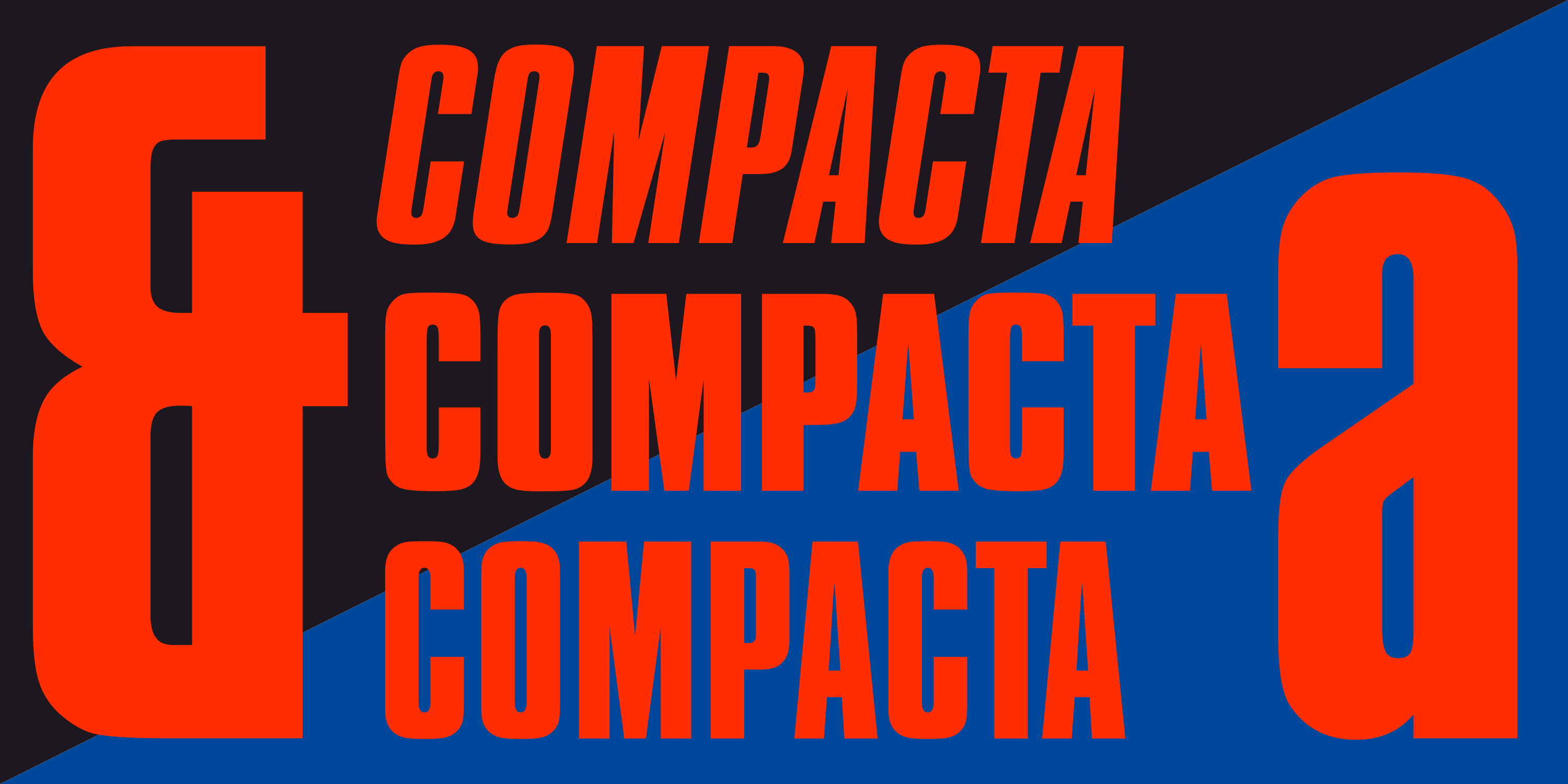
Compacta Font is perfect for newspaper headlines, magazine mastheads, advertising banners, space-efficient signage, compact layouts, bold branding, industrial design applications, and impactful display typography.
What makes Compacta Font exciting is its ultra-condensed design that maximizes character count while maintaining exceptional readability and visual impact. This distinctive typeface features dramatically compressed letterforms with strong vertical emphasis, making it ideal for situations where space is limited but maximum communication power is required.
The Compacta Font family includes Light, Regular, Bold, and Black weights, each maintaining the characteristic narrow proportions and robust construction that define this space-efficient typeface's commanding presence and professional appeal.
Compacta Font Free Download provides access to a legendary condensed typeface that revolutionized space-efficient typography. This powerful font delivers maximum impact in minimal horizontal space, making it indispensable for applications where every millimeter counts. The font's compressed architecture doesn't compromise legibility, instead creating a distinctive visual rhythm that draws attention and facilitates quick reading. Whether designing newspaper layouts, advertising materials, or compact signage systems, this font offers unparalleled efficiency in character placement while maintaining professional standards. Its proven track record in editorial and commercial design demonstrates its versatility and reliability for projects requiring bold, space-conscious typography that commands attention and delivers clear communication across all media formats and design contexts.